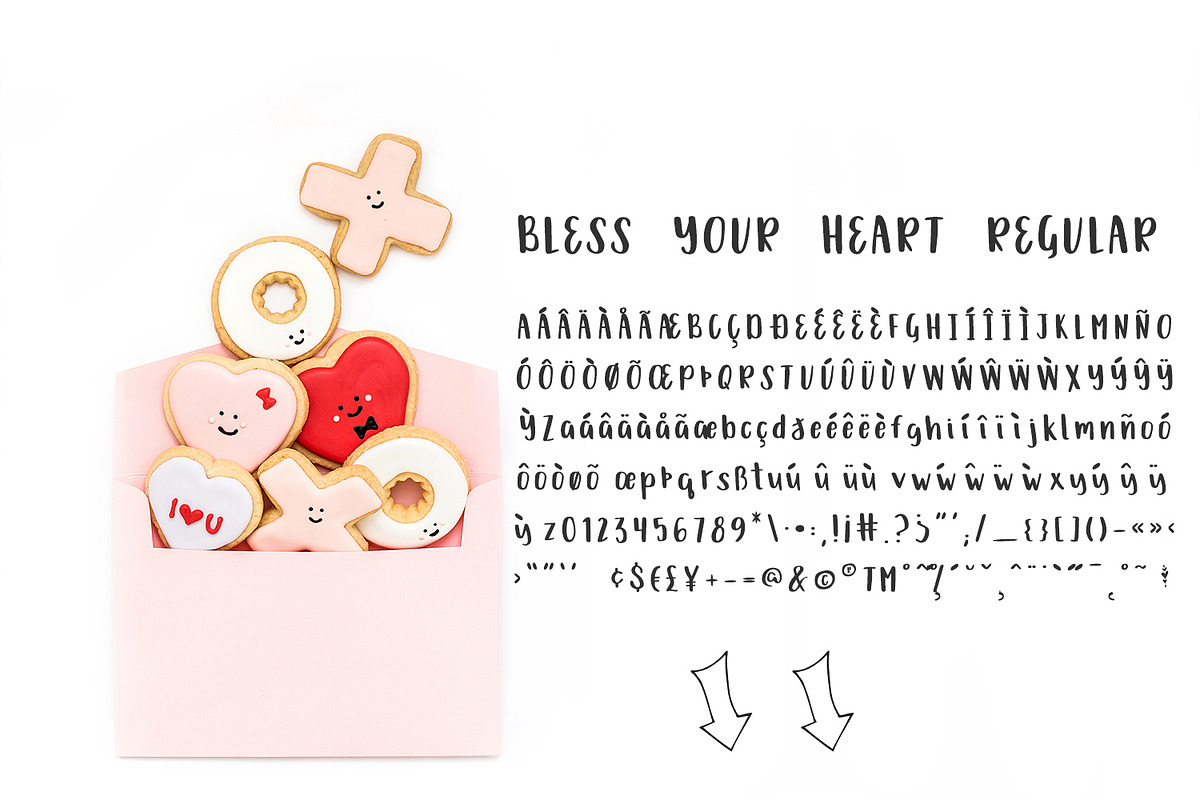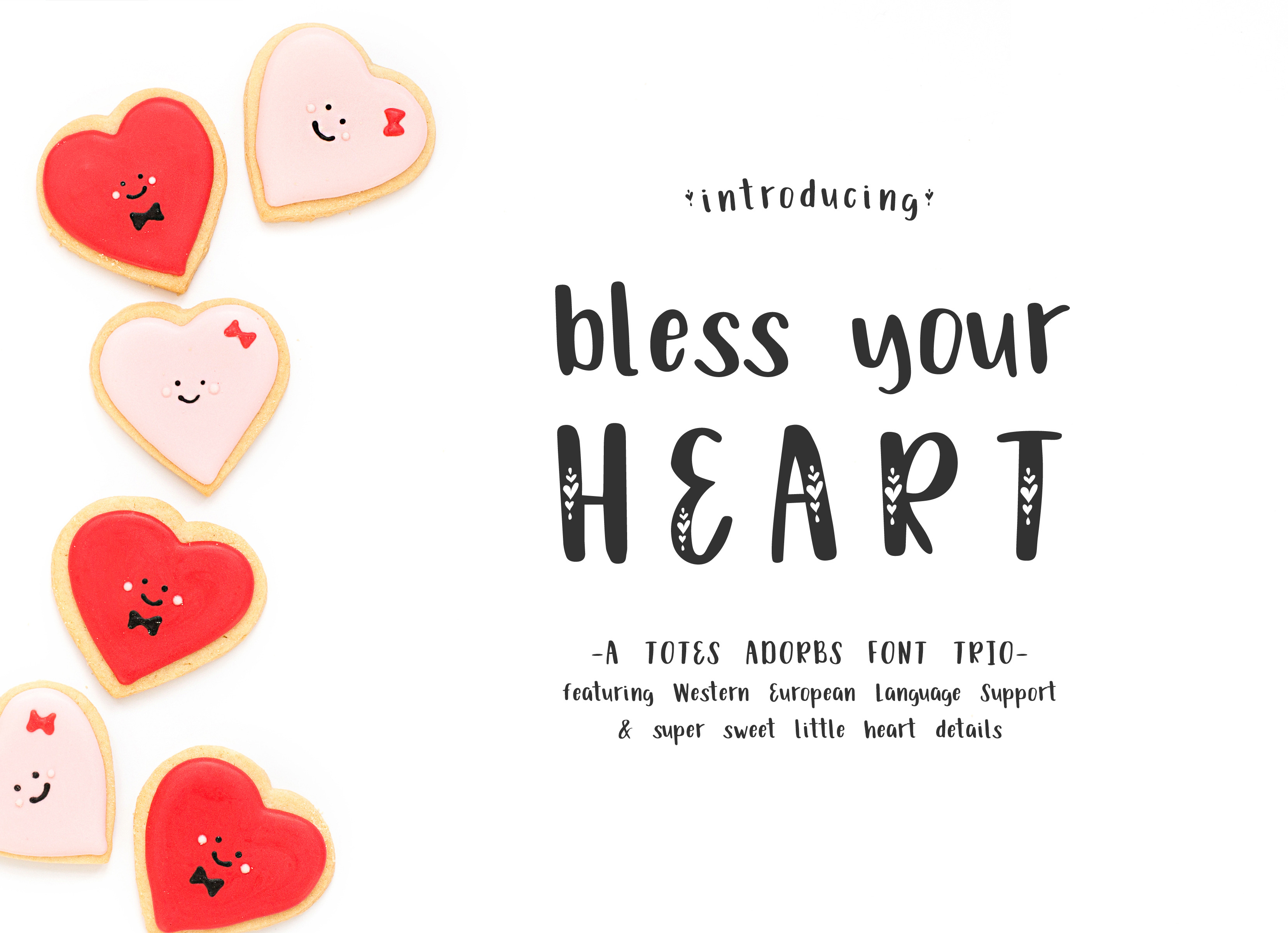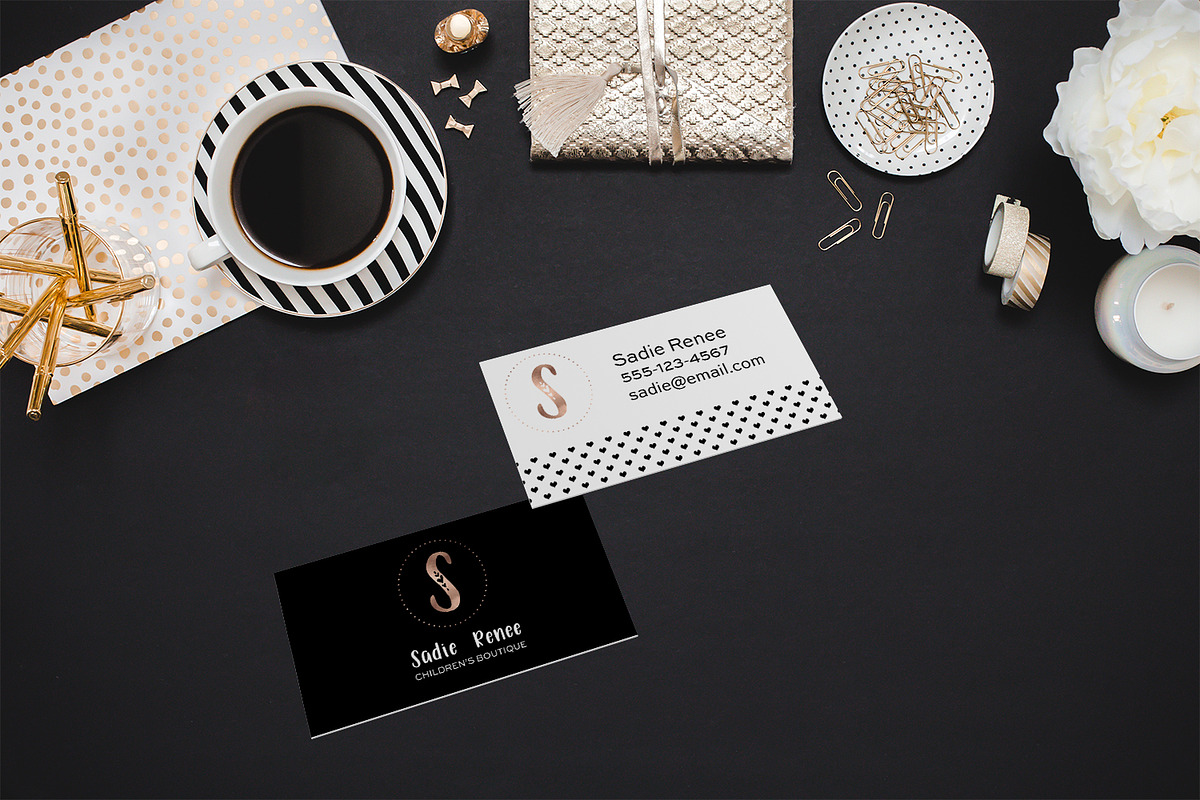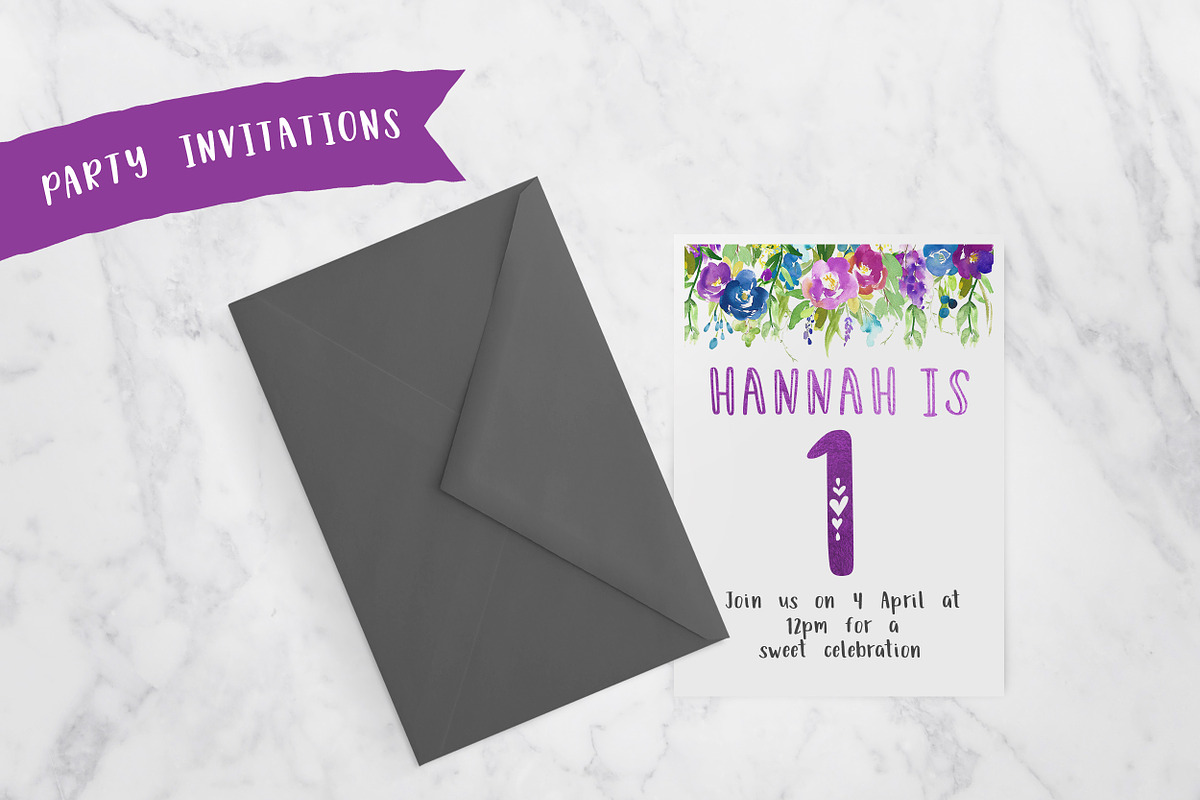
Bless Your Heart Font Trio
Introducing Bless Your Heart a hand-lettered font trio
If you've ever lived in the South, you've probably heard someone say, "Bless your heart!" It's a true, sugary sweet Southern-ism, and the nicest insult you'll ever hear.
- Inline
- Hearts
Bless Your Heart was lovingly hand-lettered on an iPad, and offers a bit of variety. Bless Your Heart is perfect for invitations, monograms, & cute feminine branding.
Bless Your Heart also offers Western European language support.